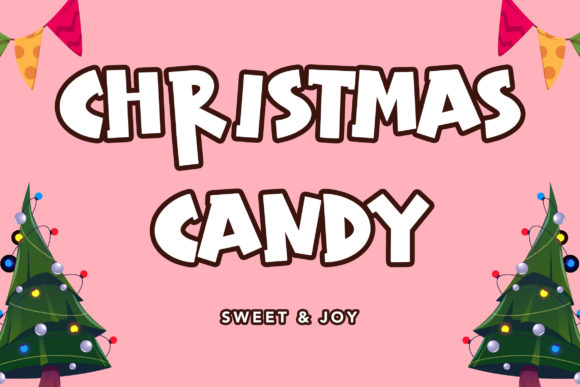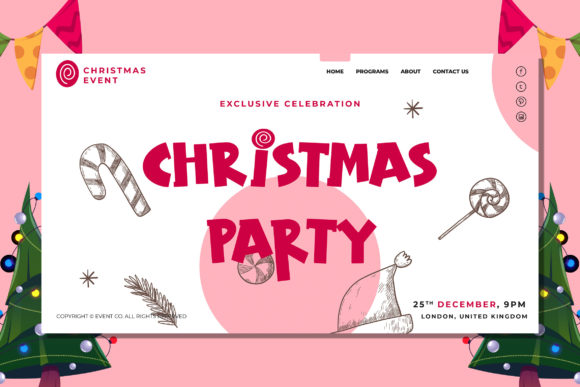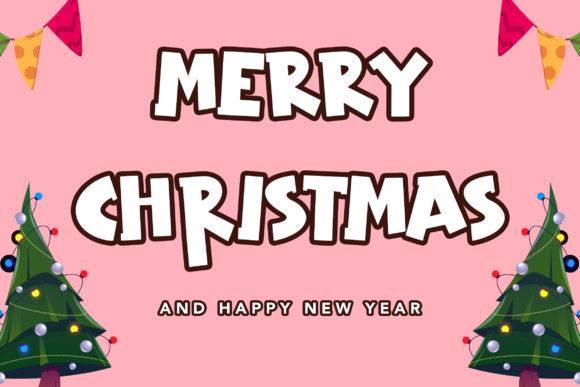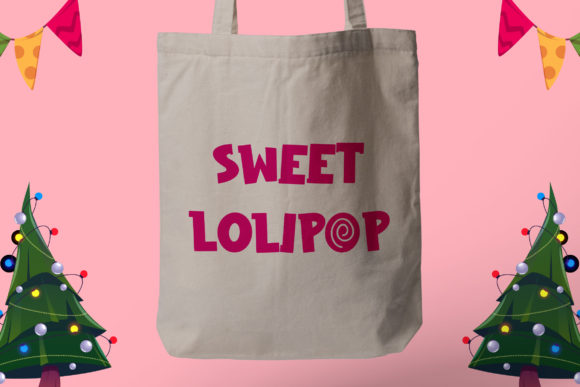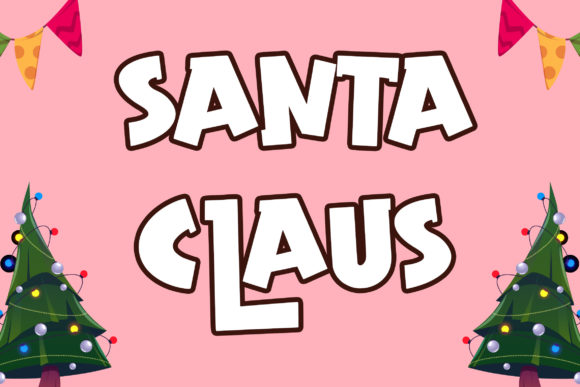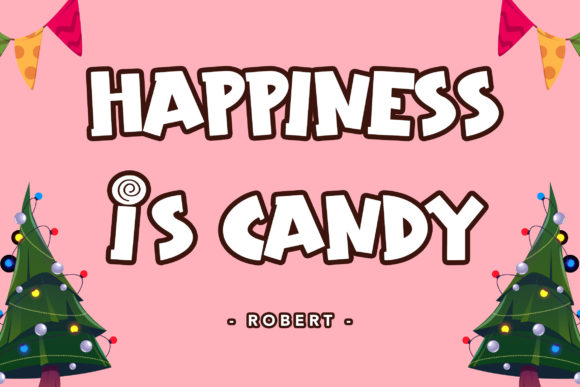
Introduction to Loli Pop Font
Do you remember the excitement of creating a handmade birthday card for a loved one as a child? The hours spent carefully crafting the perfect message, the intricate designs, and the joyful feeling of watching it all come together? That same sense of creativity and joy is exactly what the Loli Pop Font embodies.
As a valuable design resource, the Loli Pop Font is more than just a pretty face – it’s a tool that can elevate any creative project, from digital designs to presentations, and even crafts. Its easy-to-read display style conveys a sense of friendliness that’s perfect for a wide range of applications.
Loli Pop Font
- Unique and playful font style, ideal for adding a touch of whimsy to your designs
- Perfect for use in digital designs, such as logos, graphics, and typography-based projects
- Designed to be versatile and adaptable, suitable for a wide range of creative applications
Honest Review: Loli Pop Font
As a designer, I’m always on the lookout for unique and high-quality design resources to elevate my creative projects. Recently, I came across the Loli Pop Font, and I’m excited to share my honest review with you.
Here are some of the things that work well with the Loli Pop Font:
- ✨ Unique and playful design style that adds a touch of whimsy to any project
- ⚠️ Limited character set, which may not be suitable for long-form content
- ⚠️ Not as versatile as other fonts in terms of font sizes and styles
How to Use Loli Pop Font
Tips for Getting the Most Out of Loli Pop Font
To get the most out of the Loli Pop Font, experiment with different font sizes, colors, and combinations. You can also use the font with a transparent background to create a unique design element.
The Loli Pop Font is commonly used in children’s book illustrations, party invitations, and other creative projects that require a playful and whimsical touch.